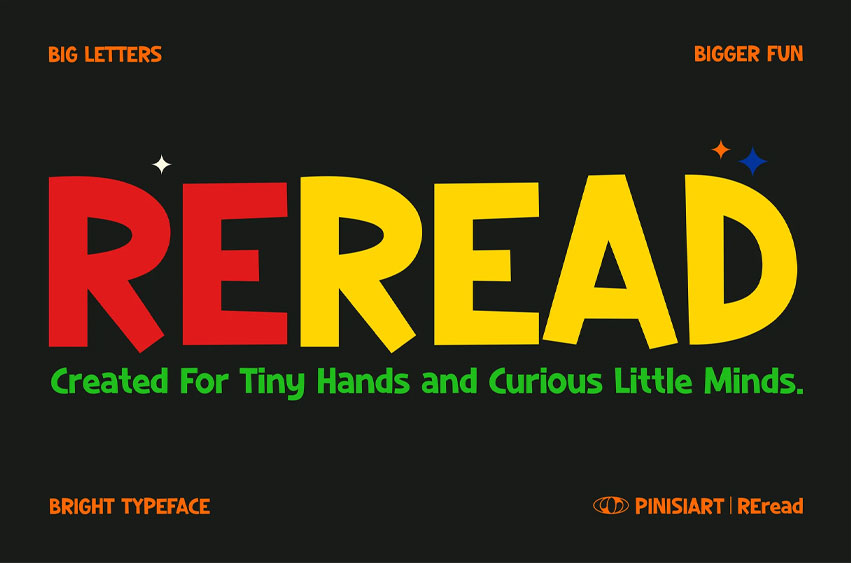
Reread Font Loud Letters for Bright Young Minds. Kids Font Reread is designed for tiny hands, big voices, and endless imagination. This bold, blocky font blends geometric simplicity with a joyful classroom vibe, making it the ideal choice for any educational, playful, or loud visual project. The letterforms are wide, rounded, and incredibly easy to read—perfect for early readers, classroom printables, and anything made for kids who love to explore the world word by word.
With a balance of structure and spark, Reread brings learning to life with shapes that feel familiar and friendly. It’s clear, clean, and seriously fun to look at—making it the go-to typeface for when you want kids (and adults) to stop, look, and remember.
Made for:
- Children’s books & phonics materials
- Learning apps and educational games
- Back-to-school posters & classroom signs
- Flashcards, sight words, and homework handouts
- Bold product packaging and kid-focused branding
Why Teachers, Parents & Designers Love Reread :
- Highly Legible Shapes – Every character is designed for early recognition
- Big Personality – Bright, bold structure captures attention instantly
- Fun Meets Function – Useful for both storytelling and learning
- Eye-Catching Contrast – Perfect for loud titles and cheerful messages
- Inclusive Design – Easy on the eyes for dyslexia-friendly layouts
Let Big Words Shine Brighter! Whether you’re teaching ABCs, designing a superhero poster, or launching a kid-friendly brand—Reread helps your message leap off the page. It’s meant to be read, remembered, and reused—again and again. Because the best words are the ones we want to reread.